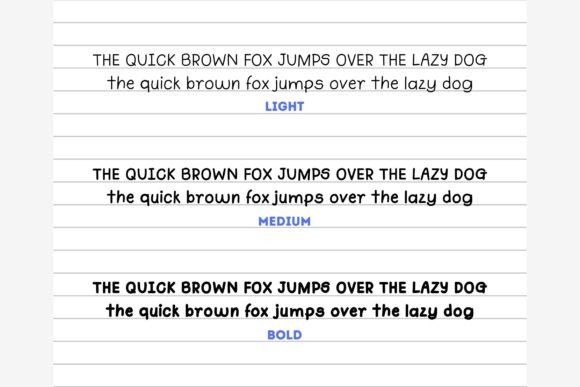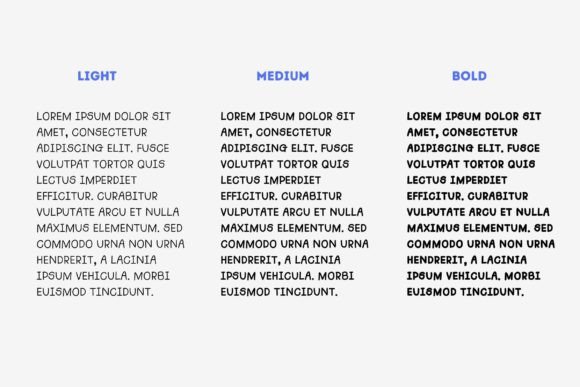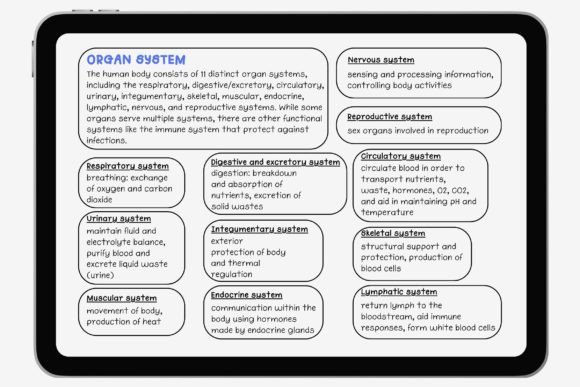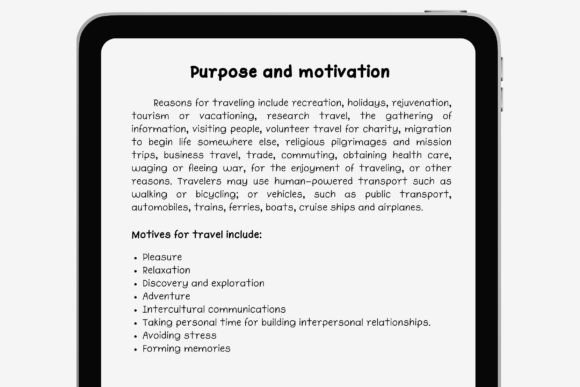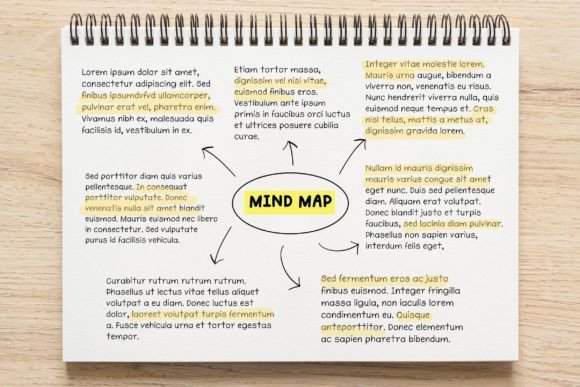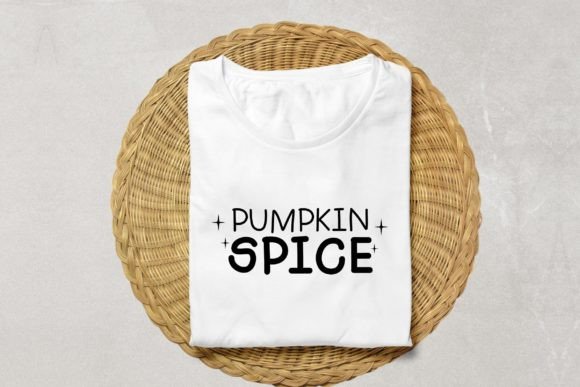
Introducing Clean Note: The Ultimate Handwriting Font for Students and Teachers
As a designer, I’ve had my fair share of late nights scouring font libraries for the perfect handwriting font. I recall working on a project for a client who needed a clean and legible font for their educational materials. The brief was simple: find a font that was easy to read, versatile, and perfect for note-taking. After hours of searching, I stumbled upon Clean Note – a game-changing font that has since become a staple in my design toolkit.
What Makes Clean Note Special?
Clean Note is an impeccably neat and legible handwriting font designed specifically with students and teachers in mind. It features three distinct weights – Light, Medium, and Bold – making it perfect for highlighting different aspects of note-taking. Whether you’re creating educational materials, digital planners, organized notes, greeting cards, or handwritten correspondence, Clean Note is the perfect tool to streamline the process of conveying and comprehending information.
- ✨ Clarity and legibility: Clean Note is incredibly easy to read, even at smaller font sizes.
- ✅ Versatility: With three weights and a range of OpenType features, Clean Note can be used for a variety of design projects.
- 💡 Unique character set: The font includes a range of glyphs and stylistic alternates, making it perfect for creating visually appealing designs.
- 🤔 Limited language support: Clean Note currently supports a limited number of languages, so be sure to check the font’s capabilities before use.
- ⚠️ Occasional kerning issues: As with any font, there may be occasional kerning issues, especially when using the font at very small sizes.
The Story Behind Clean Note
Clean Note was designed with the goal of creating a clean, legible, and versatile handwriting font for students and teachers. The designer, inspired by the need for clarity and organization in educational materials, set out to create a font that would make note-taking easier and more enjoyable. With its unique character set and range of OpenType features, Clean Note has become a go-to font for designers and educators alike.
Q: What is Clean Note?
A: Clean Note is a handwriting font designed specifically for students and teachers, featuring three distinct weights and a range of OpenType features.
Q: Is Clean Note suitable for digital use?
A: Yes, Clean Note is optimized for digital use and can be used in a variety of digital applications, including websites, social media, and educational materials.